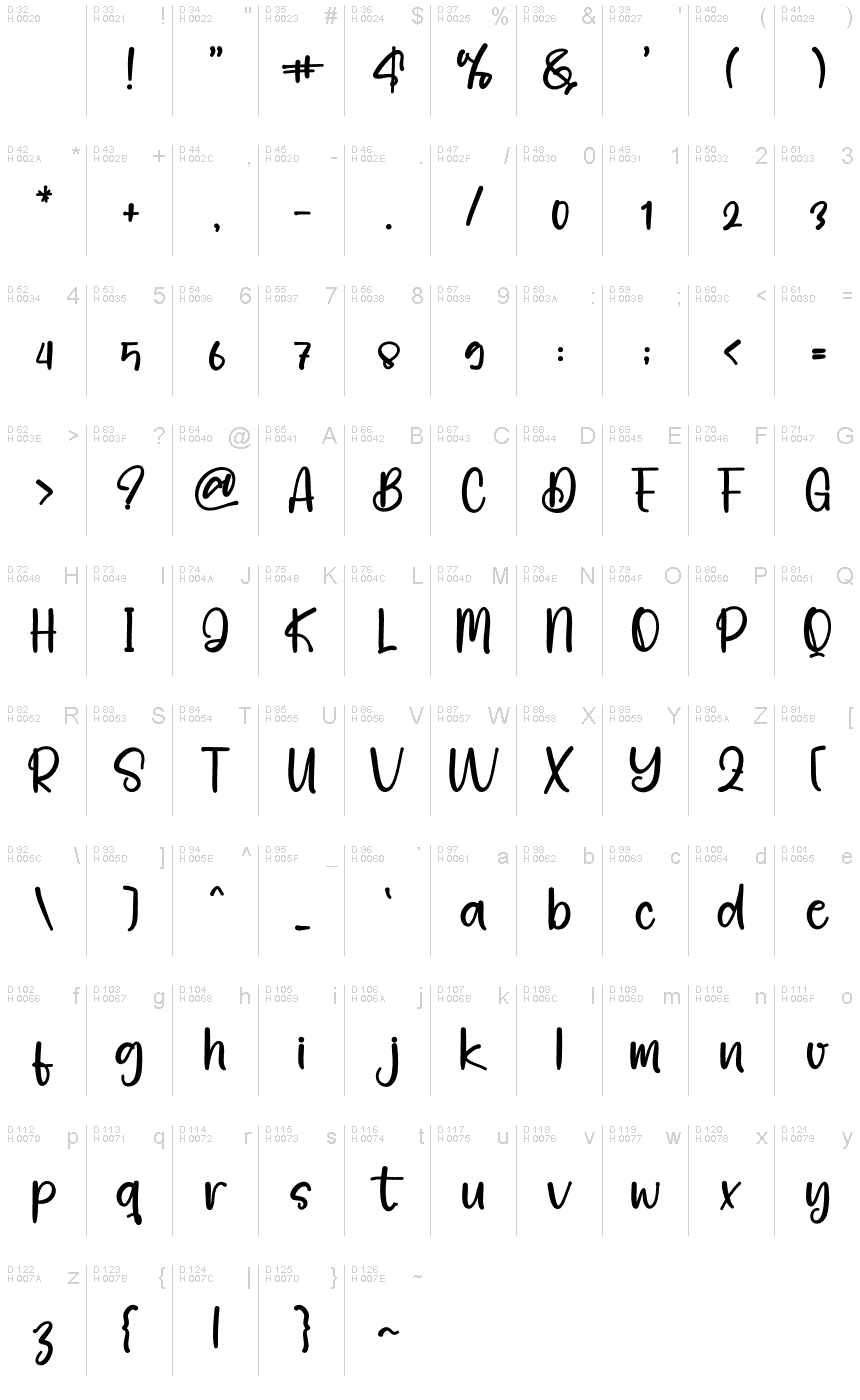
Hoursed
Hoursed, designed by Inermedia Studio, is a casual handwritten font that effortlessly captures the essence of creativity and individuality. Its charmingly imperfect strokes and organic flow make it perfect for adding a personal touch to various creative projects.
With its friendly demeanor, Hoursed lends itself well to logo designs for artisanal coffee shops or trendy boutiques seeking a warm and approachable brand identity. Additionally, this versatile font can be used for invitations to casual events like garden parties or baby showers, evoking a sense of warmth and intimacy.